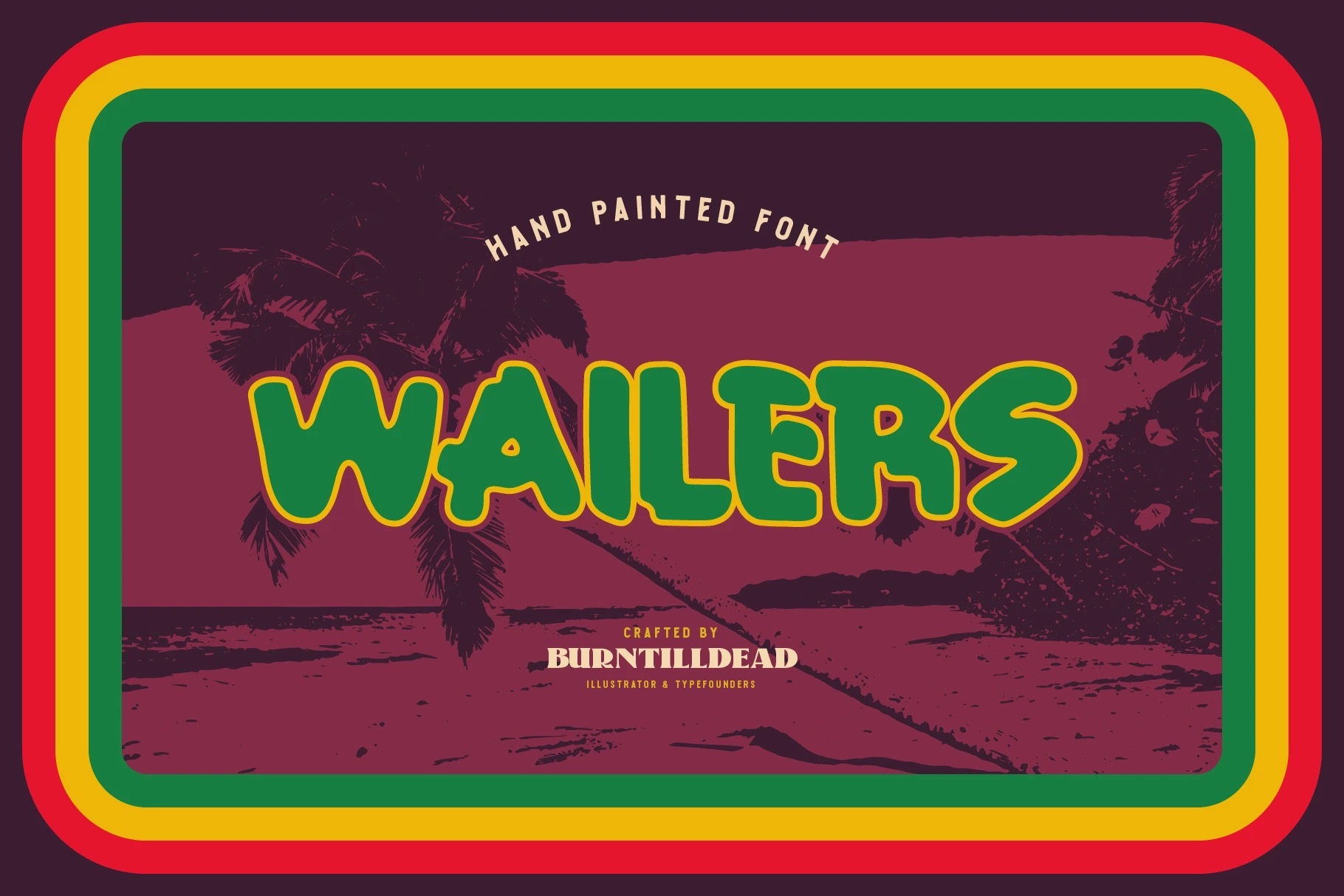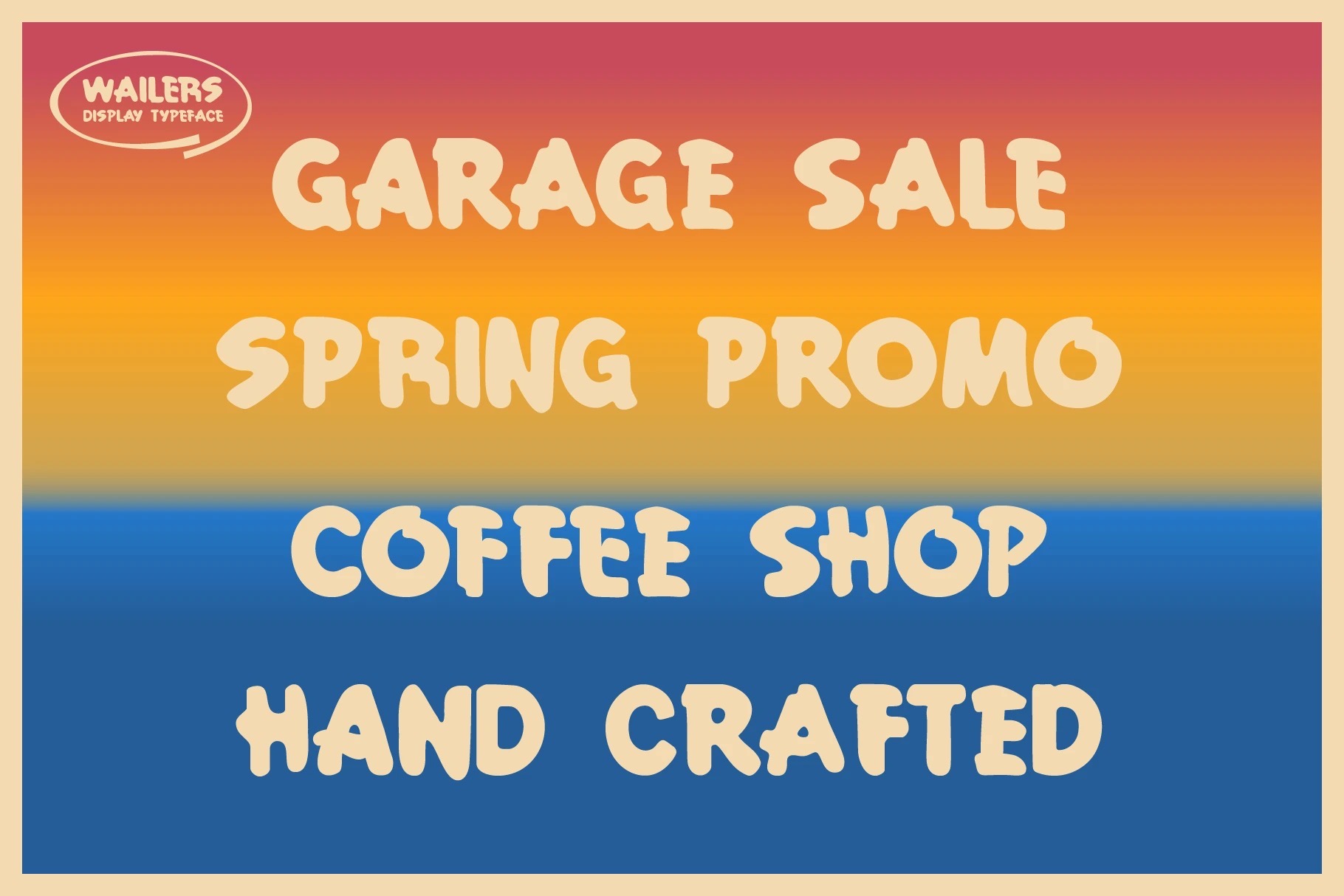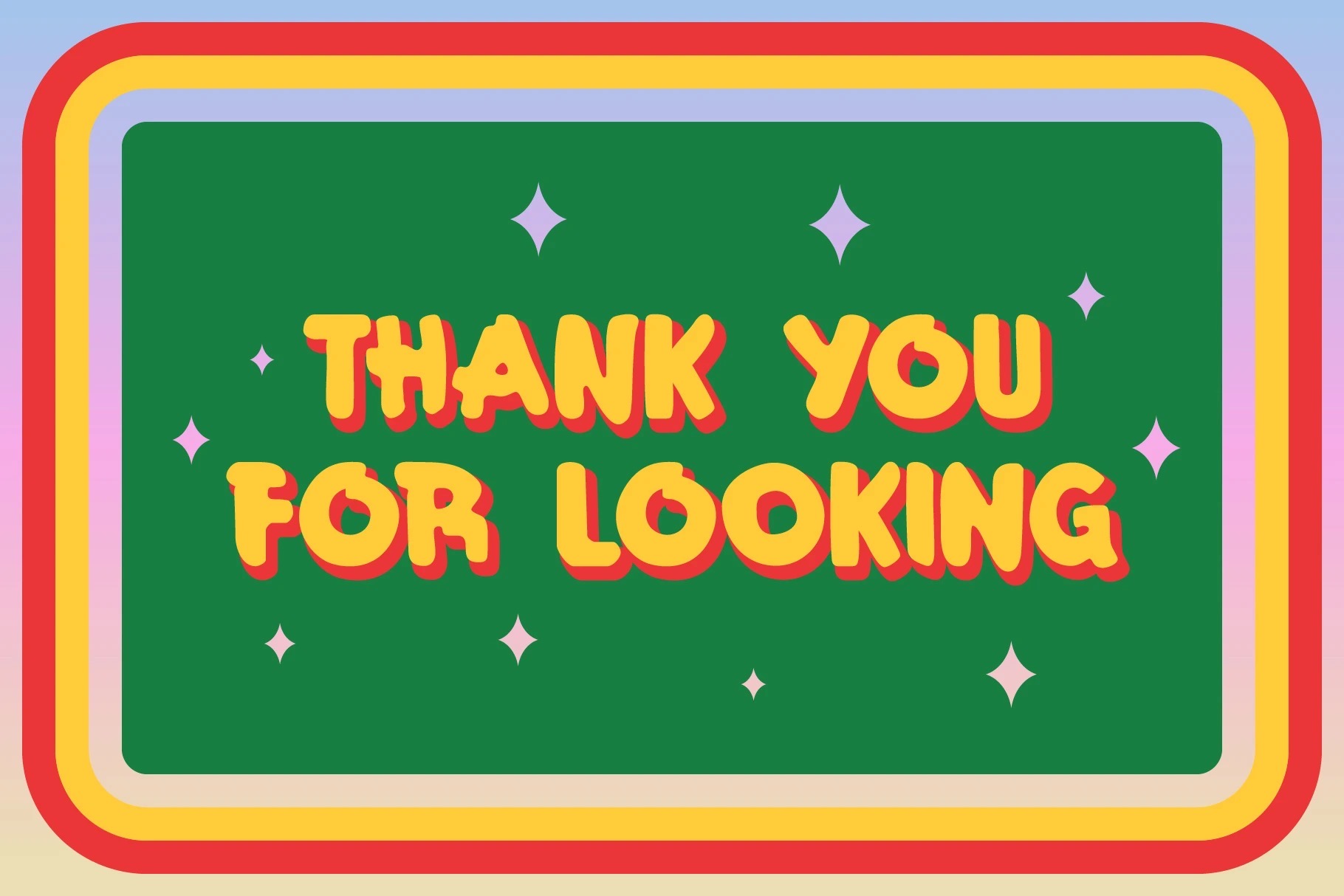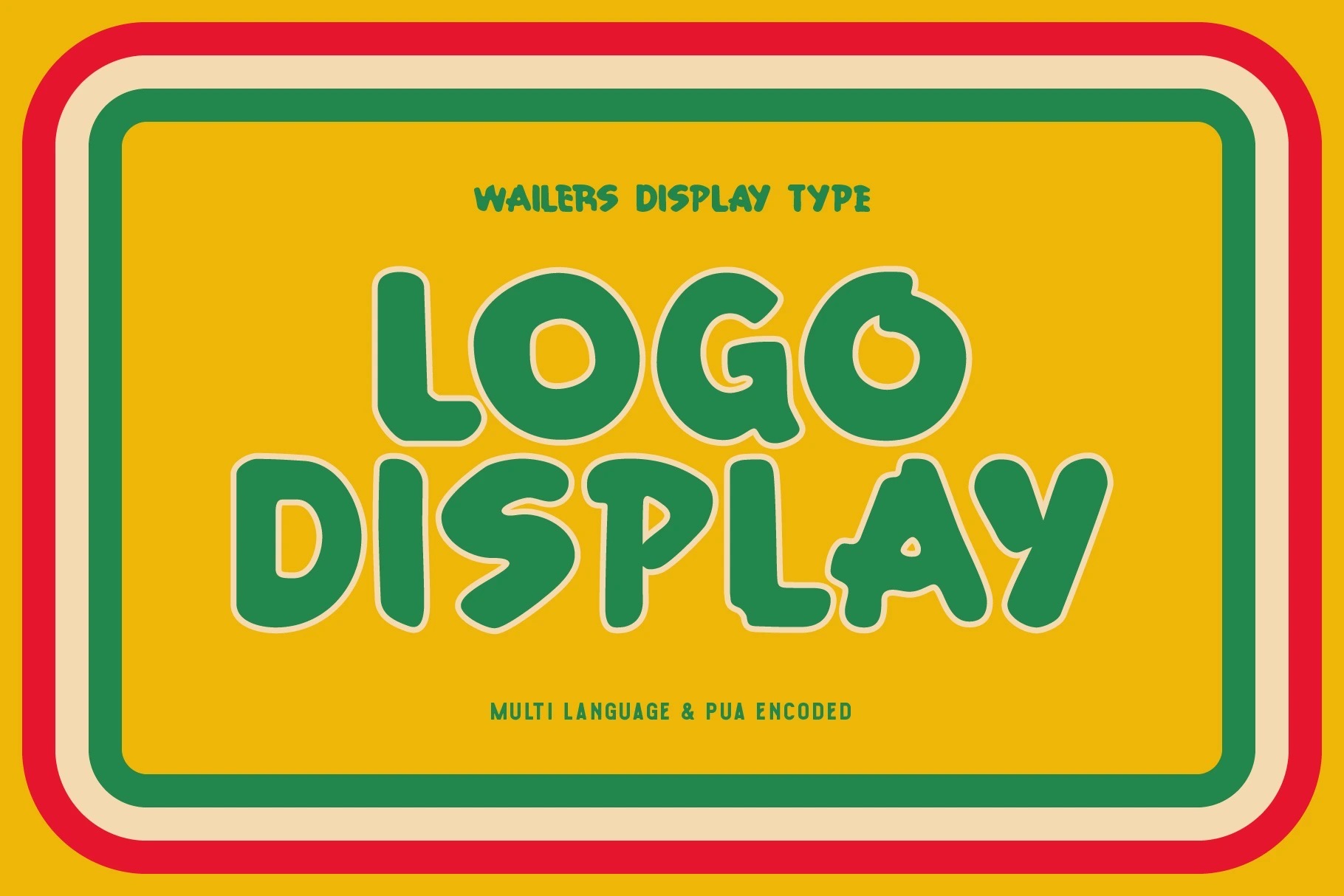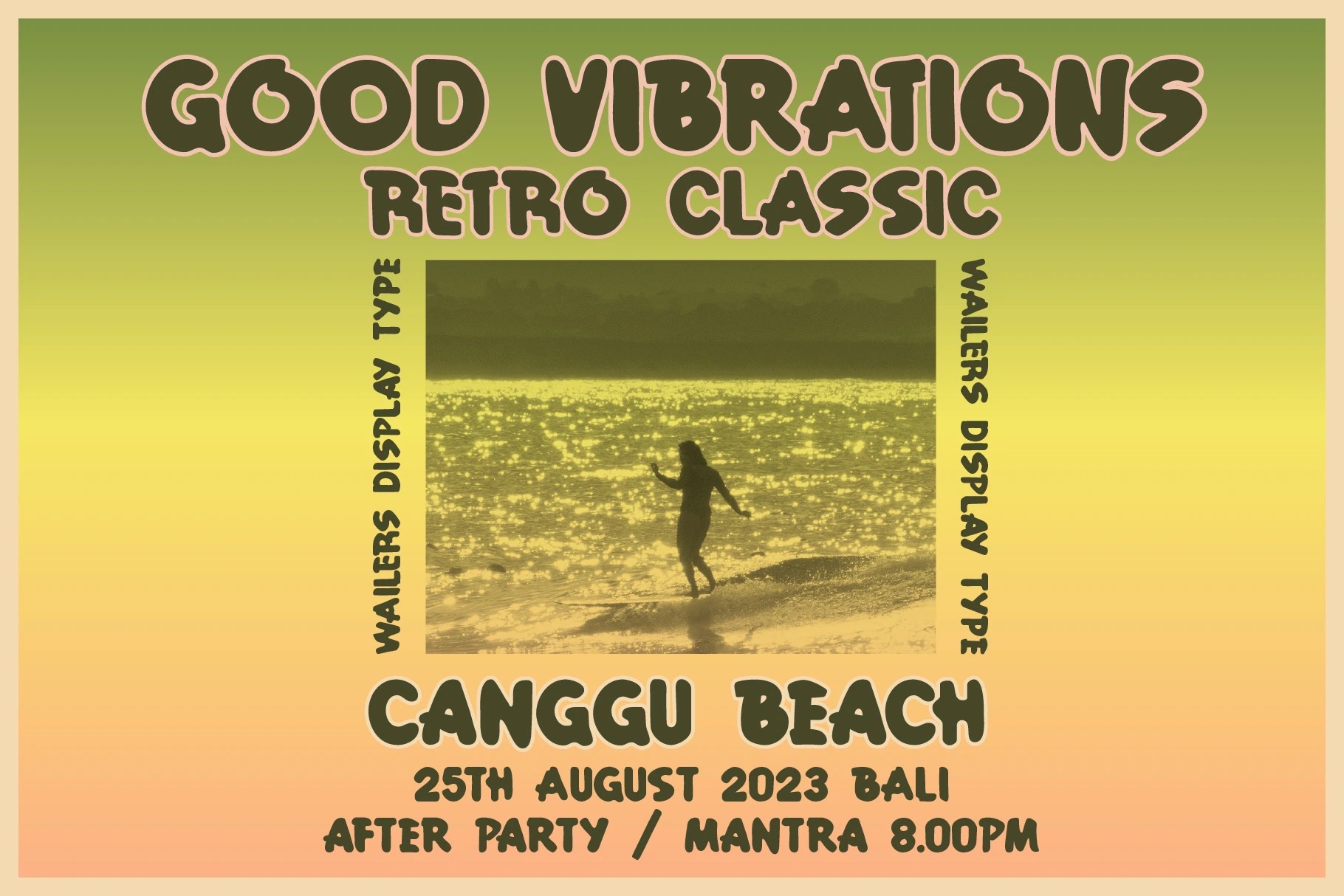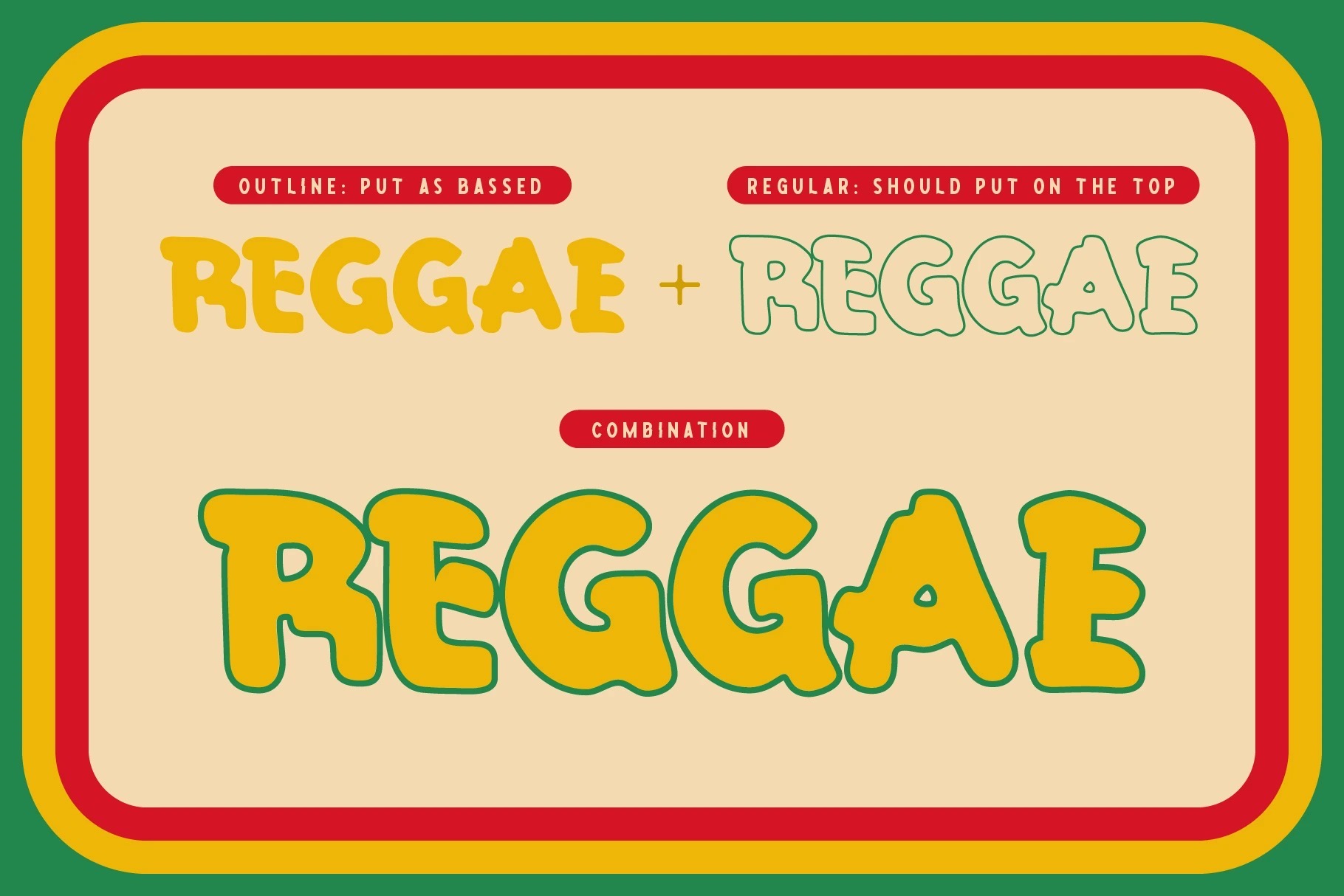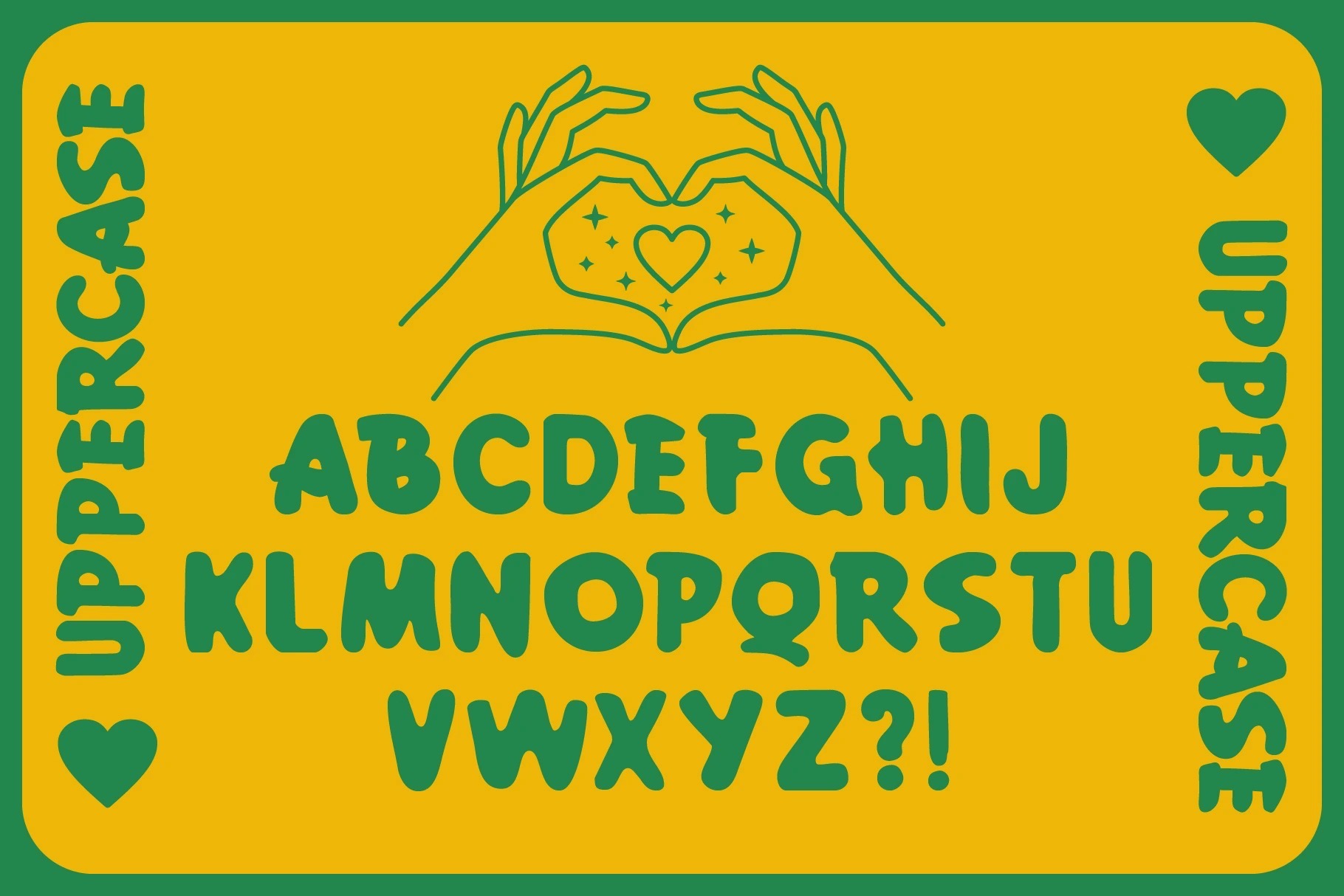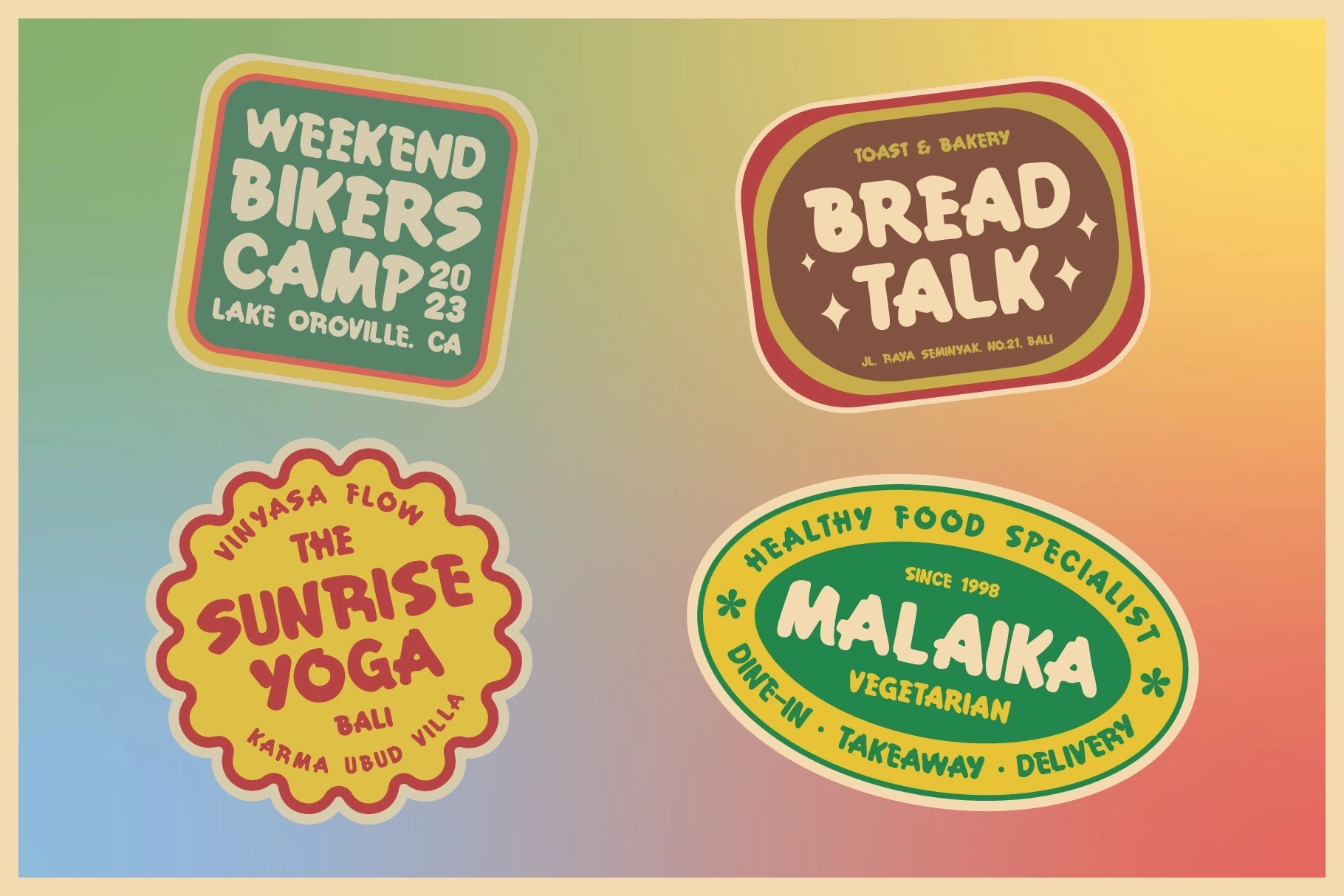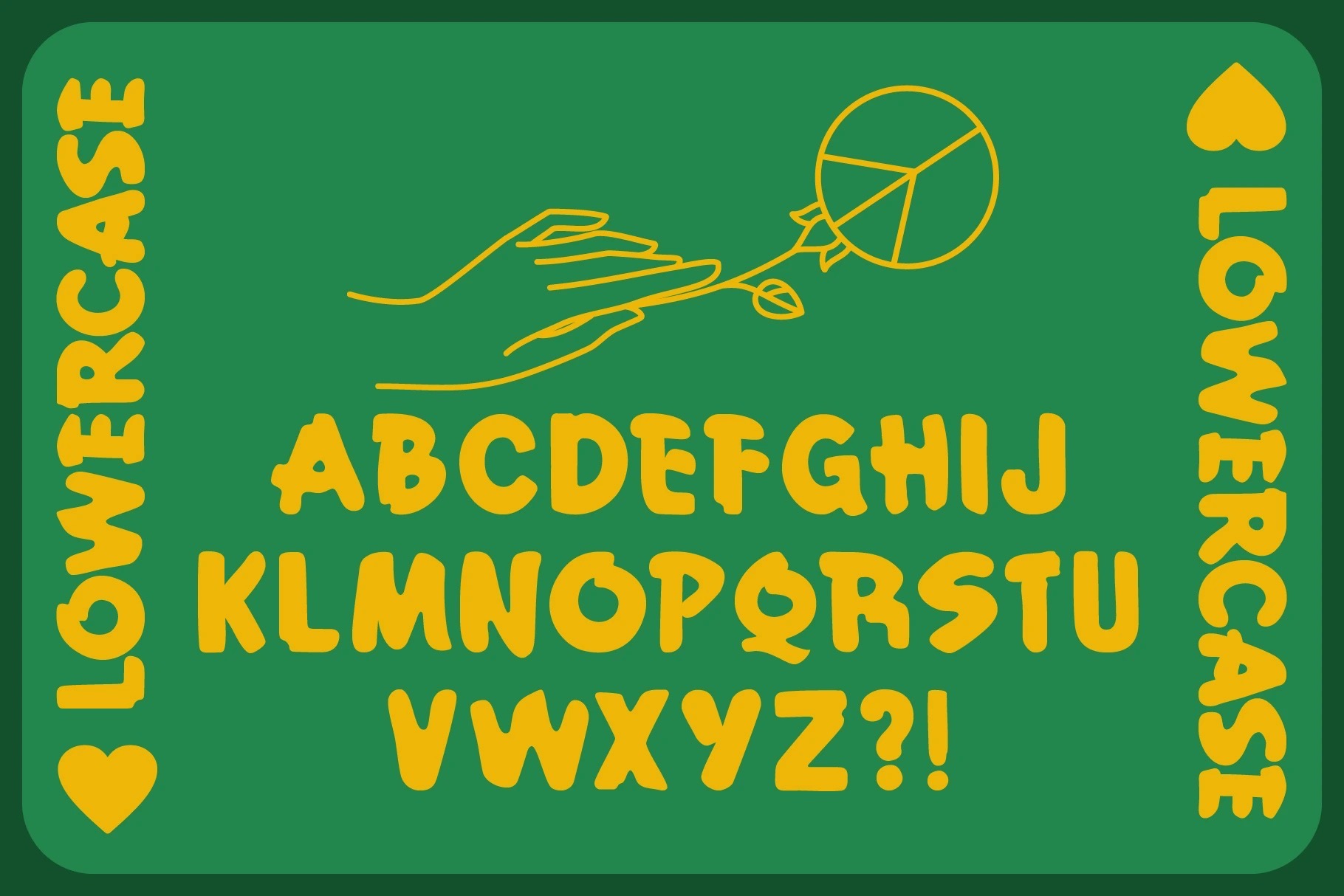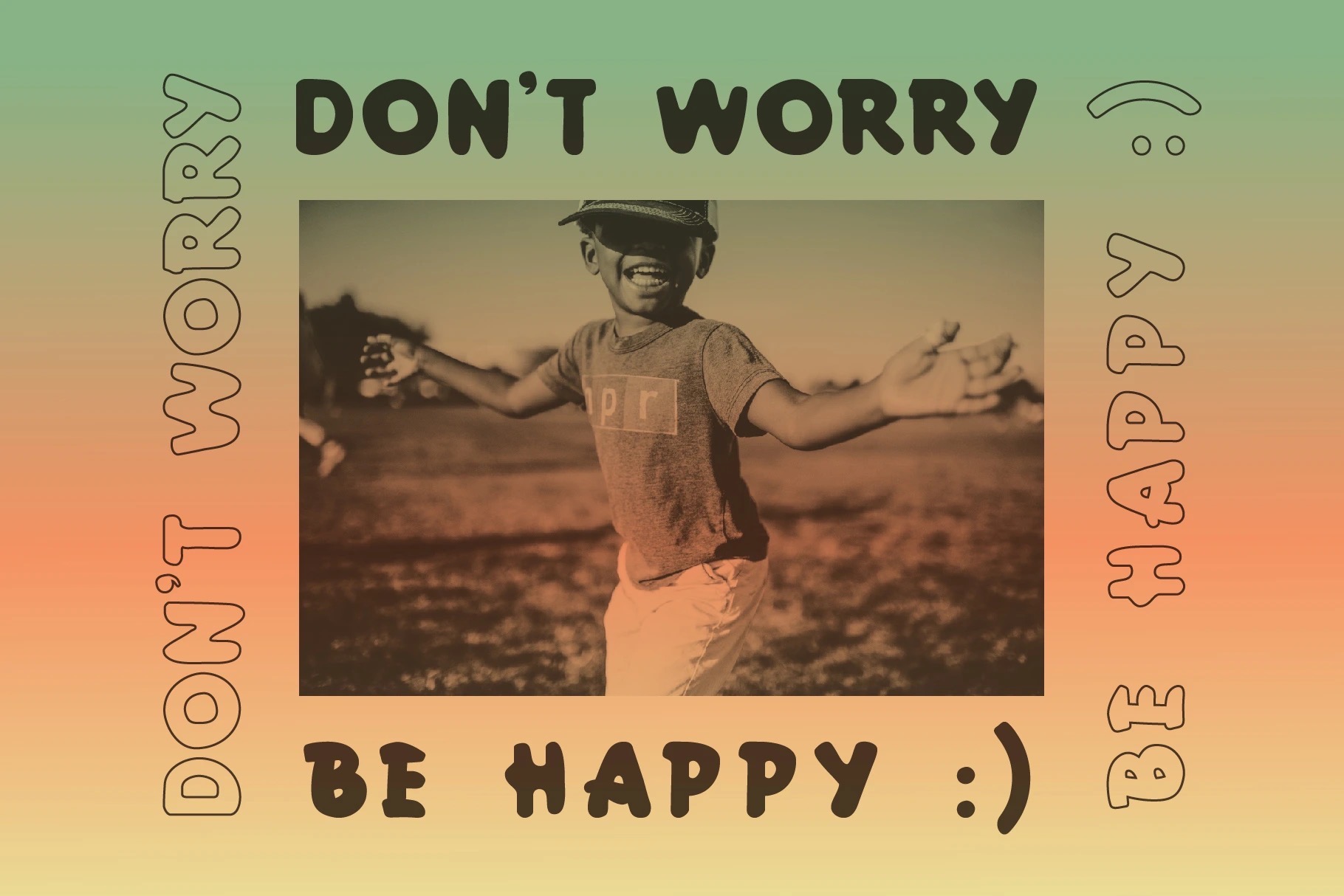
- Wailers
Introducing “Wailers” a hand painted display typeface. Wailers is an uppercase font that looks fun, free souls and peace with two styles, regular and outline.
Perfect and suitable for logo, branding, sticker, t-shirt, headline, packaging, etc.
- A – Z set (Uppercase & Lowercase All Caps)